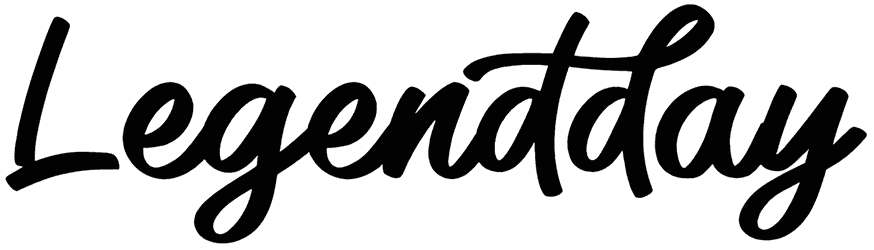
Legendday Font
Legendday font has a charm and warmth that can hardly be replicated with digital letters. This handwritten font adds a personal touch to any project and gives it a unique personality that sets it apart.
You can use this script font in various styles, from wedding invitations to restaurant menus, book covers, and digital advertisements. With incredible appeal and versatility, Legendday is an excellent way to showcase your unique design flair and add sophistication to a project.